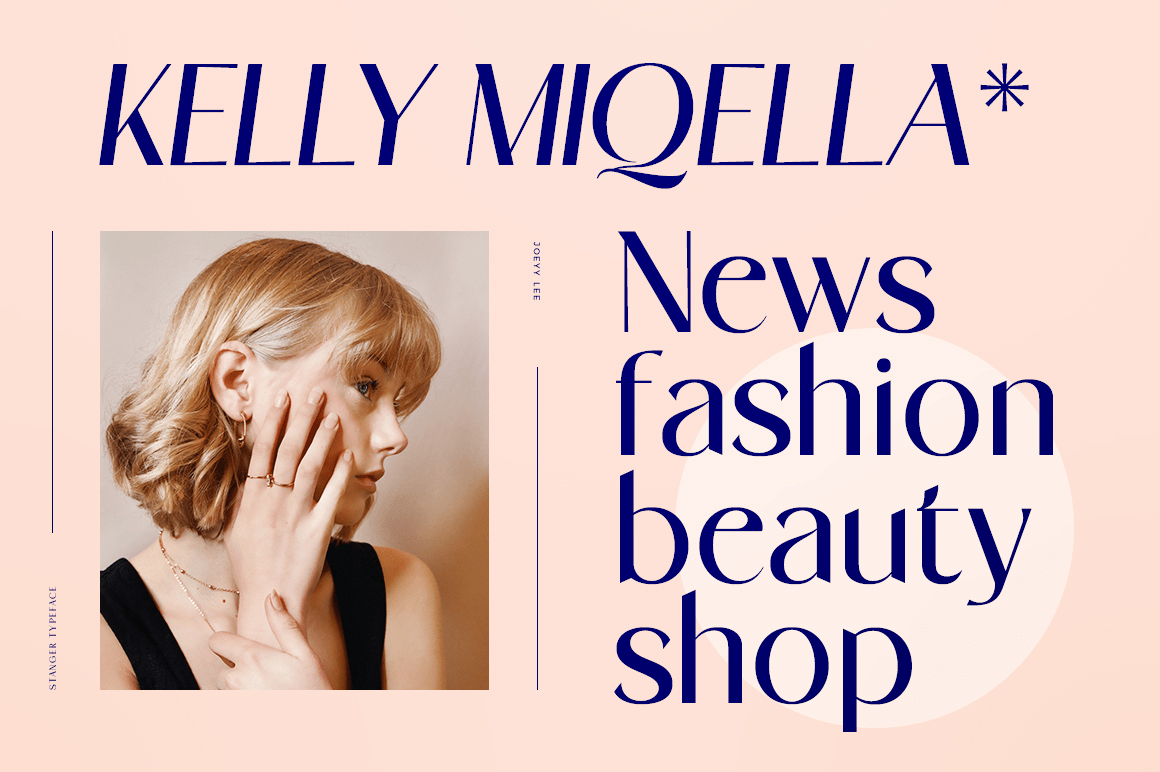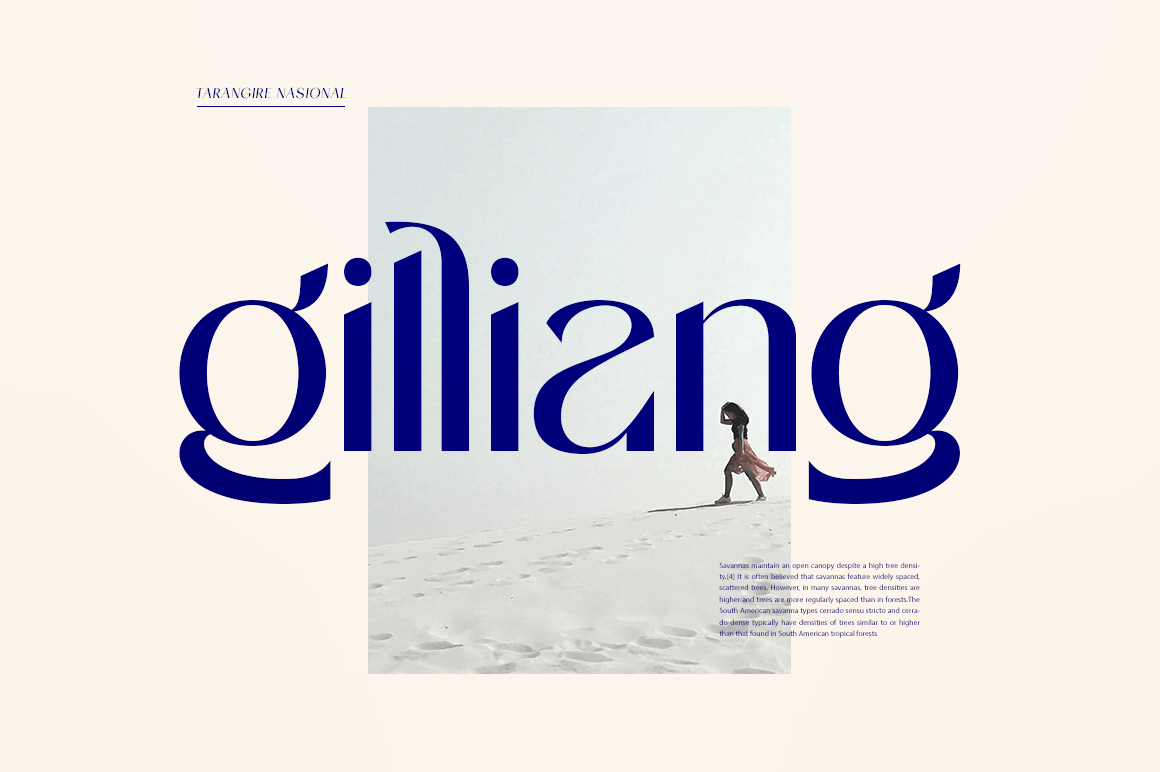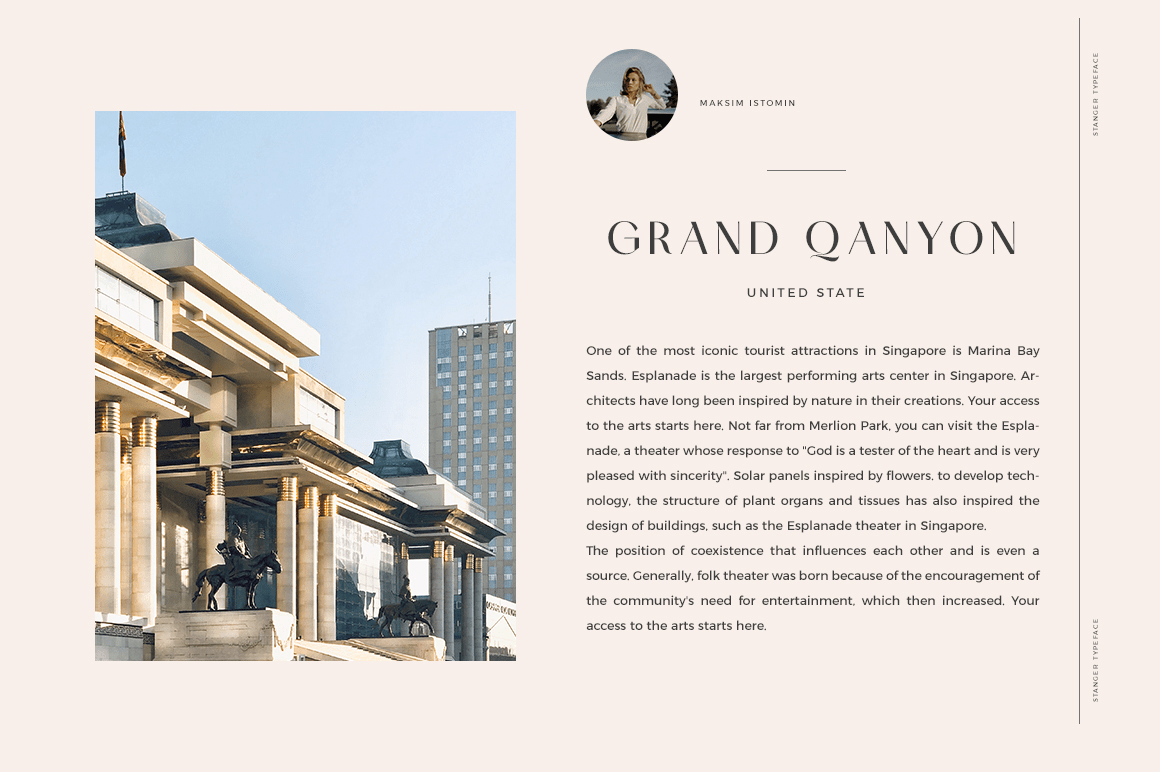
About Stanger
Stanger – a sans serif look with simple, clean and visual elegance with smooth curves and beautiful ligatures, A very versatile font that works in both large and small sizes. This font is suitable for a wide variety of projects such as: headlines, logos,…